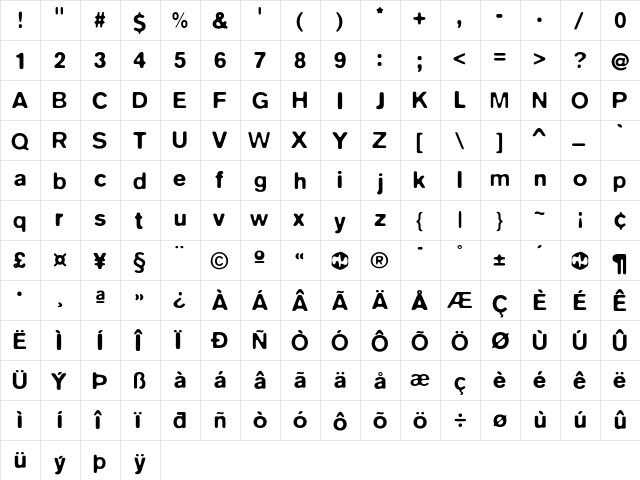
Blur Medium Font Preview
Blur Medium
Blur Medium Font Details
Design Context for Blur Typeface
Blur takes a measured approach to typography — its balanced proportions and neutral character make it a reliable workhorse for both digital and print work.
Pro Tip: Pair Blur with a font of contrasting weight or personality to build a more expressive typographic hierarchy.